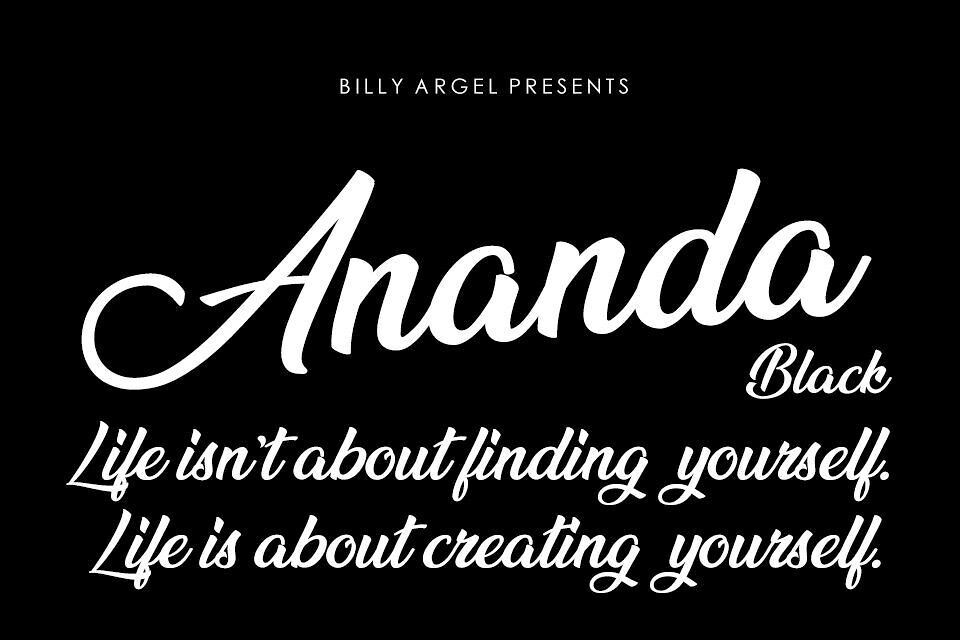
Ananda Black Font
Ananda Black Font and Ananda Font, both by Billy Argel, are elegant script typefaces perfect for creative designs. They feature a calligraphy style with smooth, flowing letterforms.
Ananda Black offers a bold, striking look, while Ananda Regular (also included) has a lighter, more delicate feel. Ideal for logos, branding, and invitations, both fonts are free for personal use, with commercial licenses available. They support OpenType features and are versatile for projects needing a touch of sophistication.